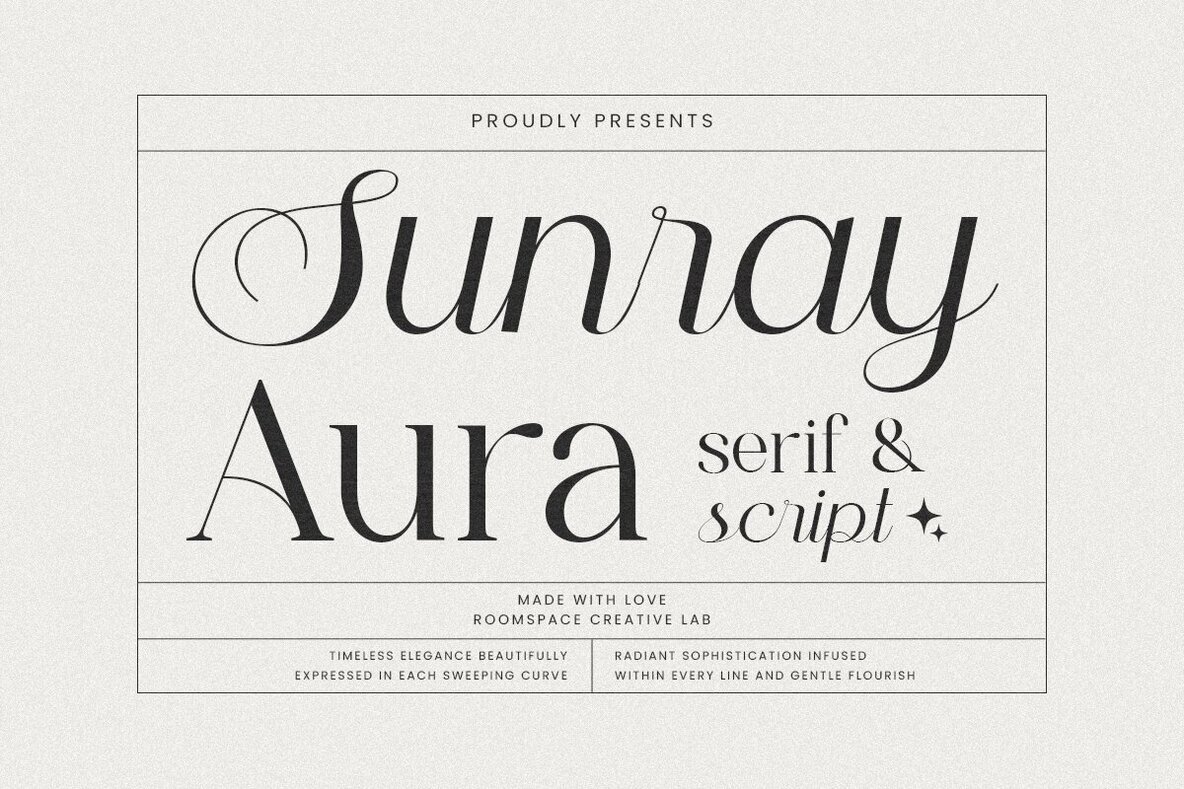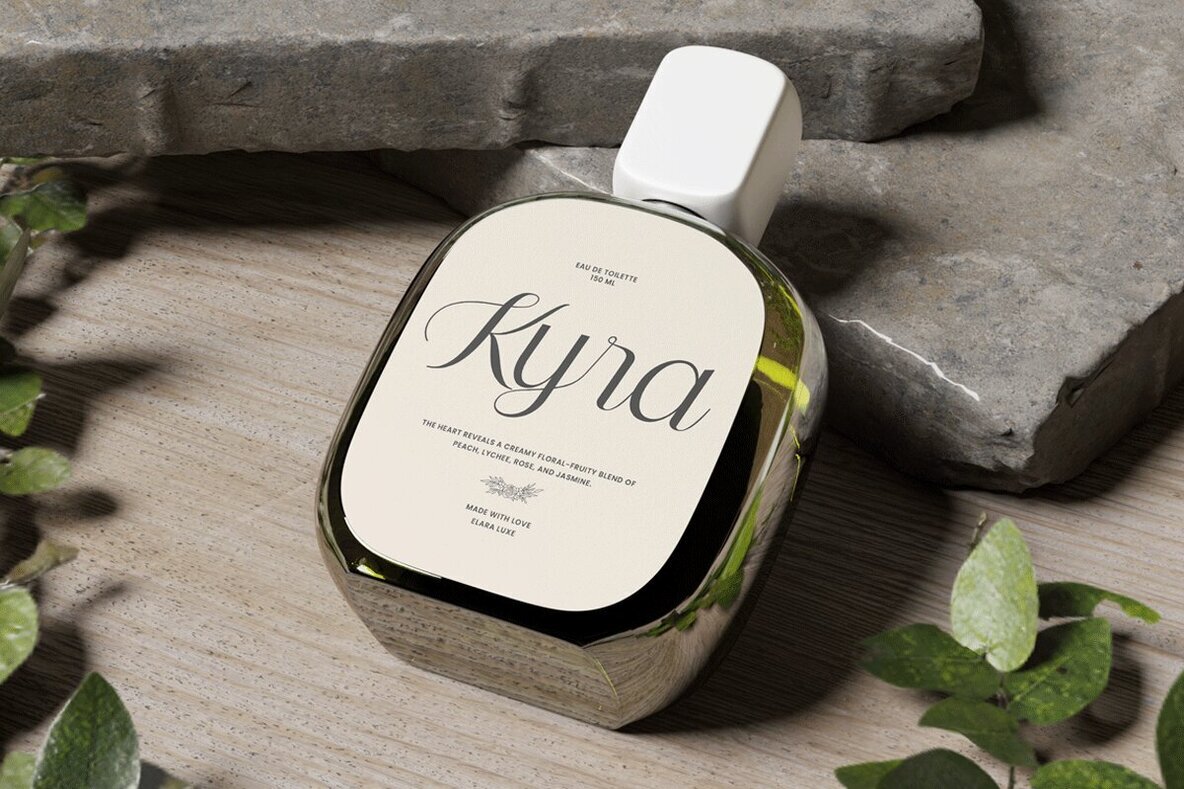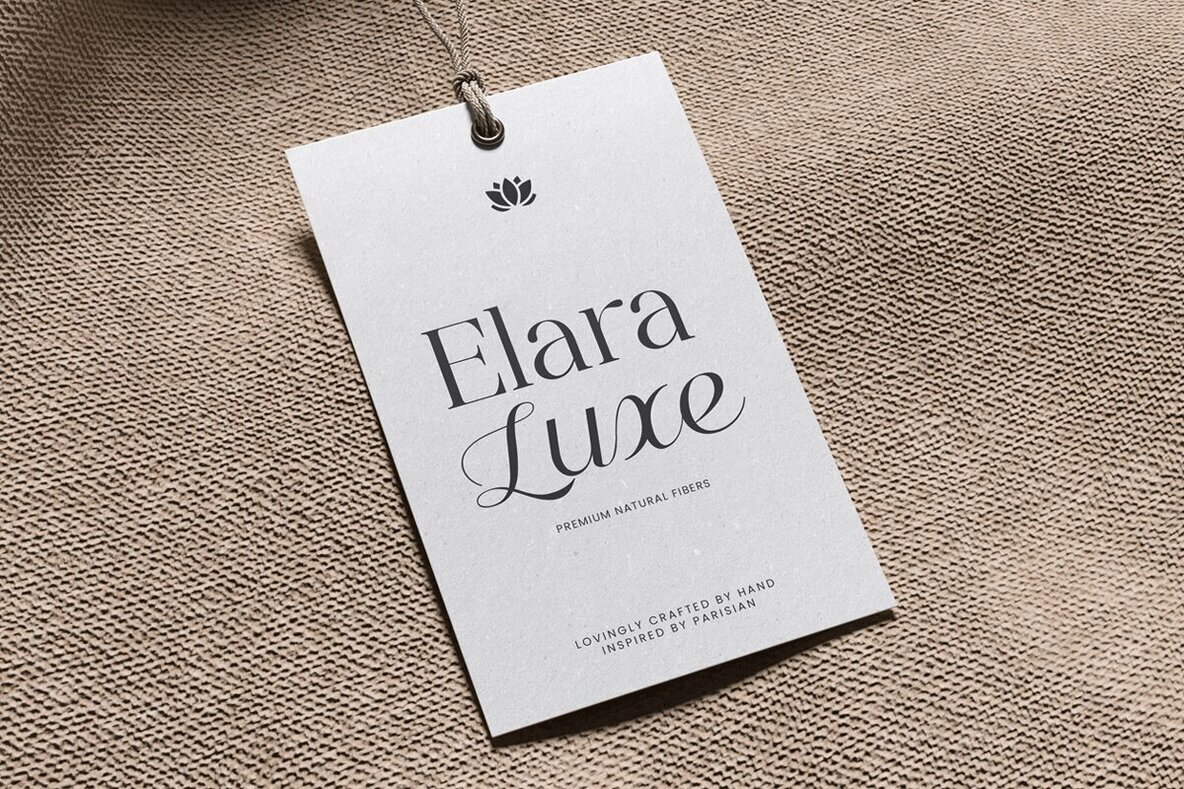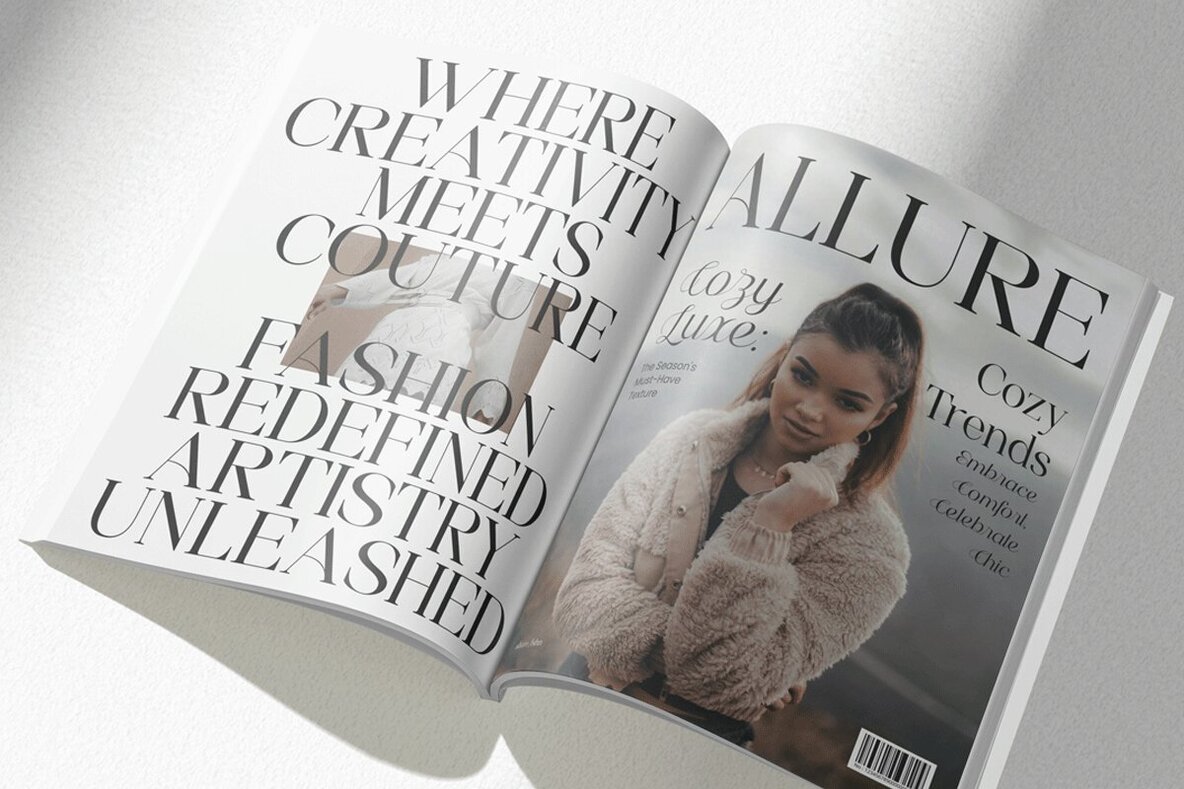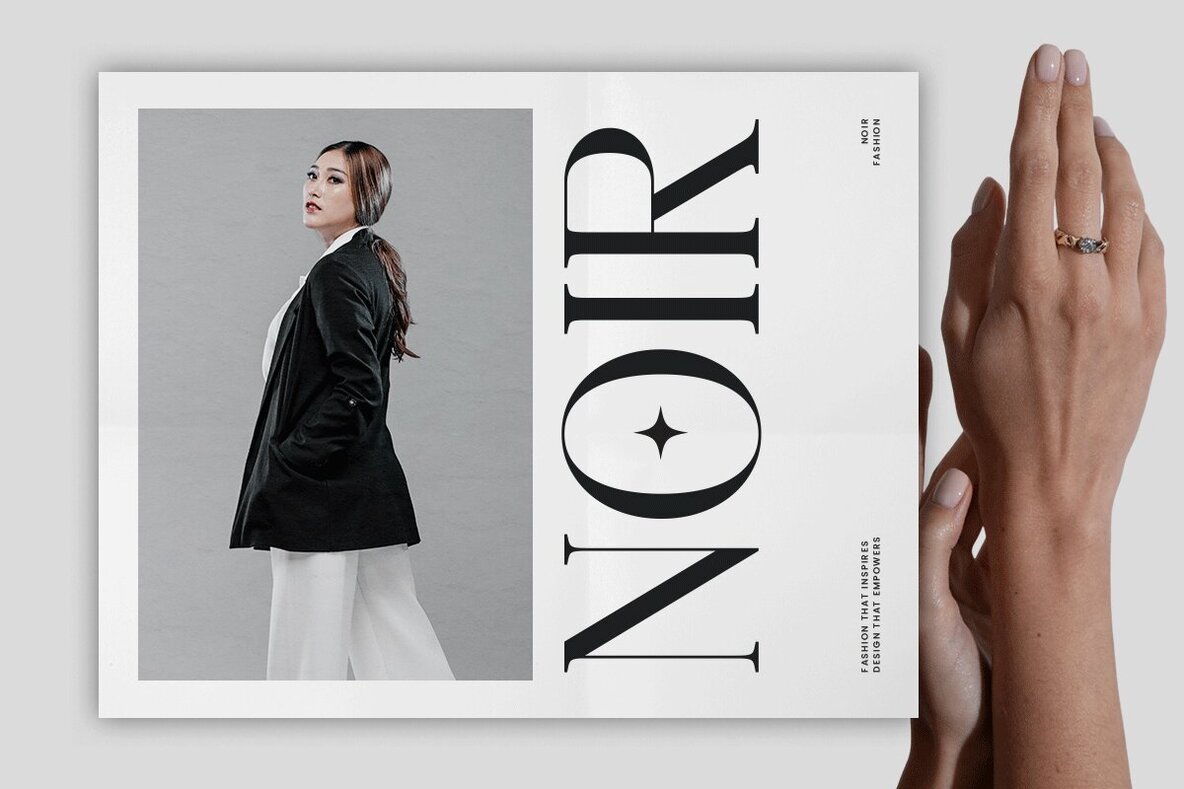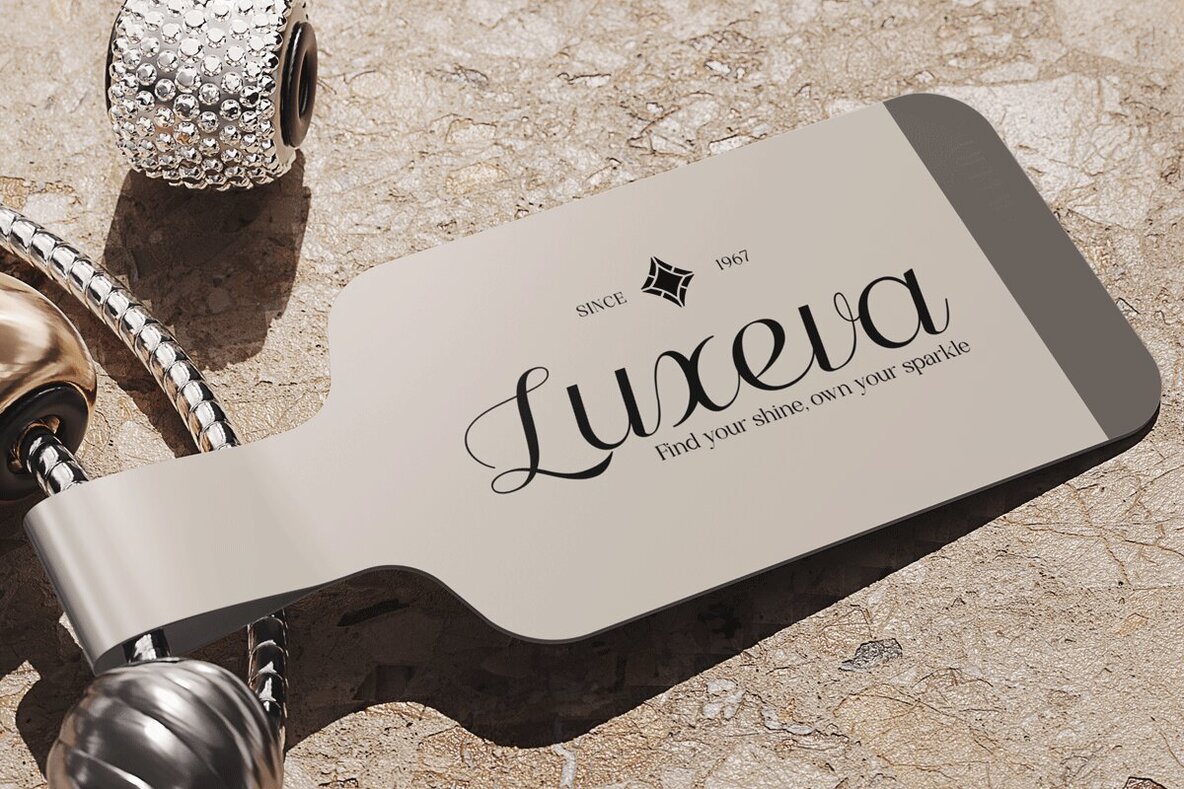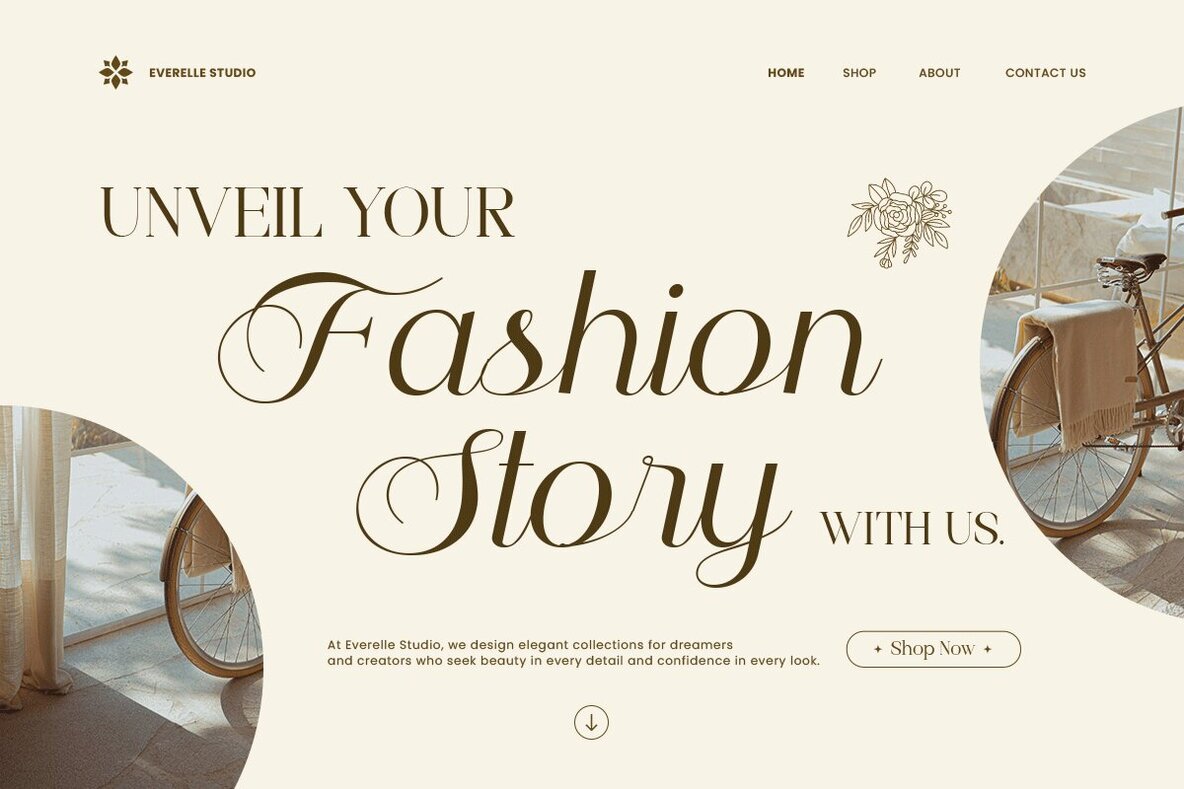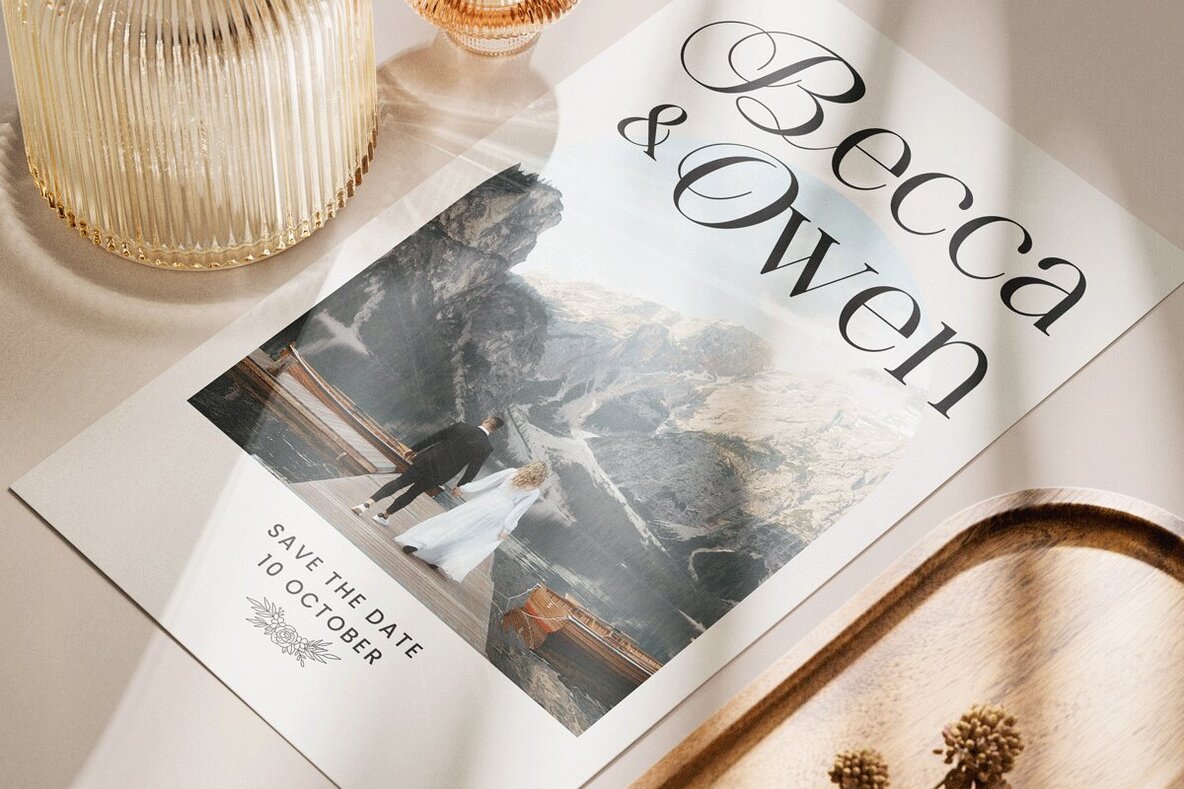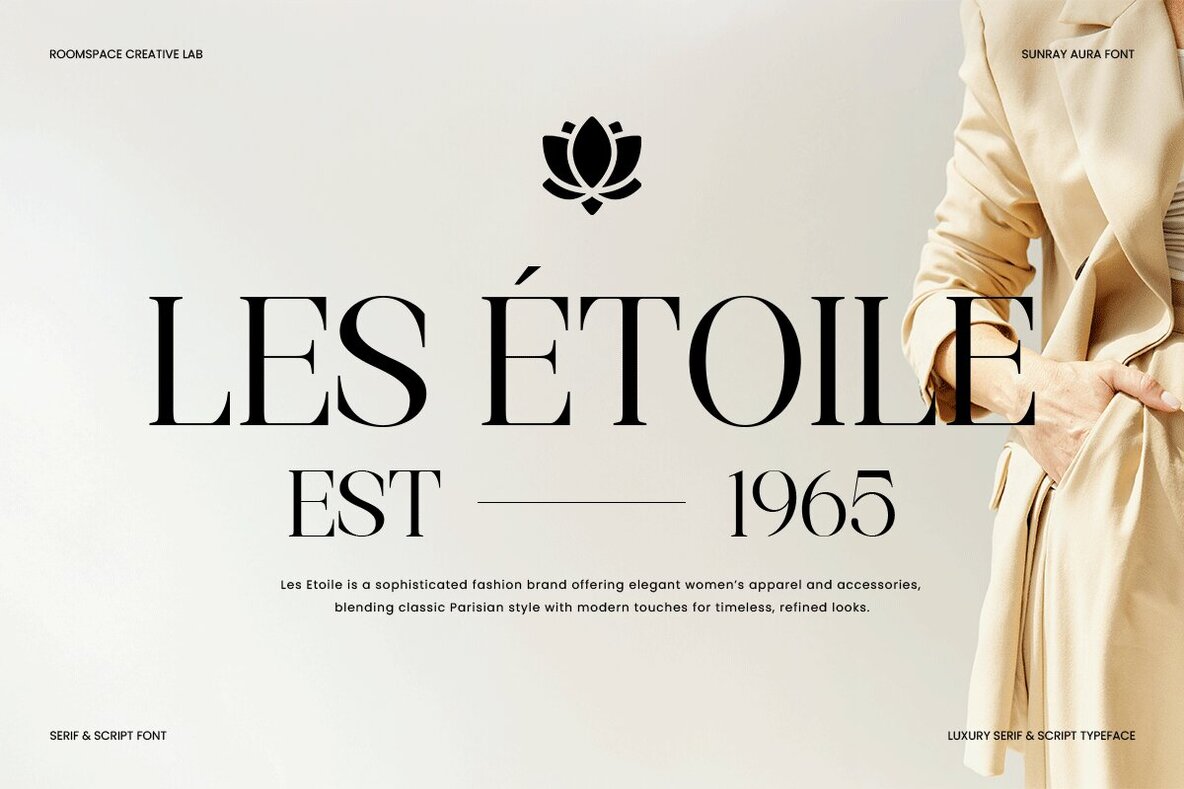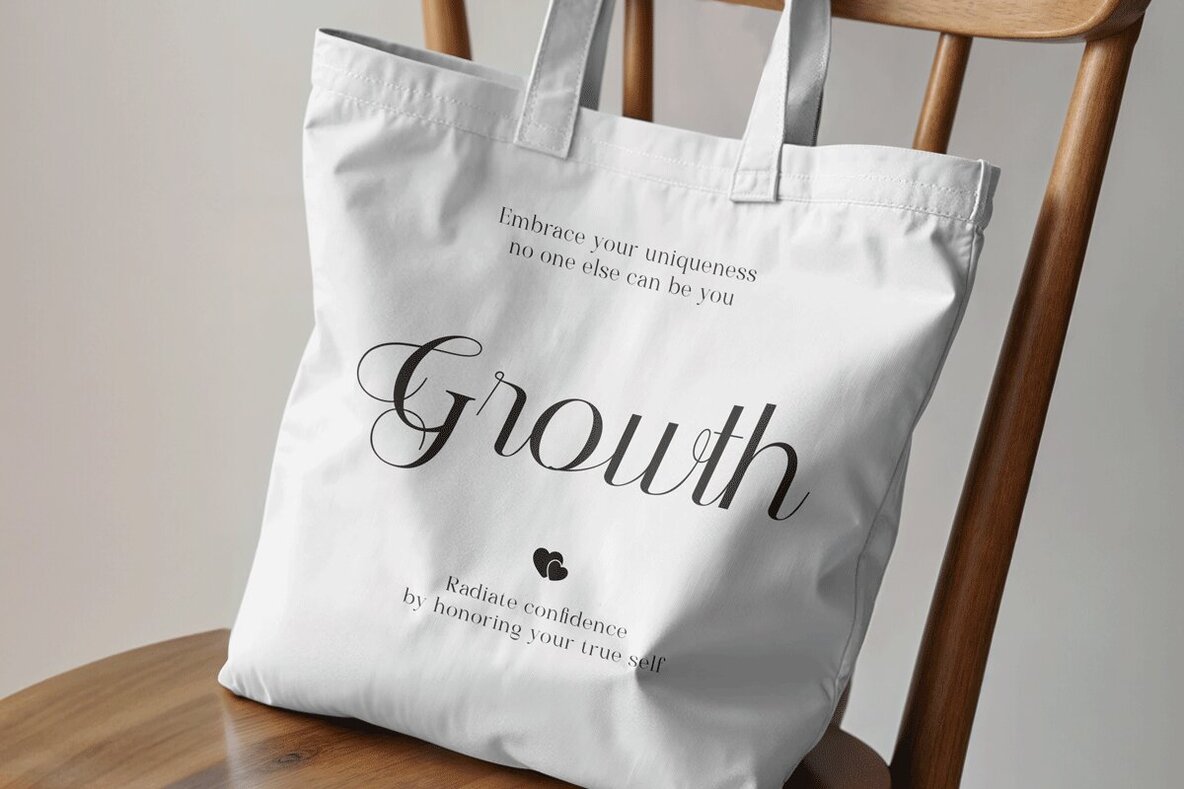
Sunray Aura Font
Sunray Aura offers a refined blend of classic serif structure and graceful script details. Its serif foundation brings subtle sophistication, while the script elements feature gentle swashes and flowing curves, adding warmth and character. This typeface is designed to evoke a sense of luxurious beauty, making it an excellent choice for projects that value both tradition and gentle, expressive flair. The thoughtful balance of kerning, contrast, and proportions allows Sunray Aura to perform beautifully in both print and digital environments. Its versatility supports a wide range of branding, editorial, or packaging applications, ensuring each composition feels polished and inviting. Perfect for those who appreciate combining the timeless appeal of serifs with the soft charm of hand-lettered script.Sunray Aura: Elegant Serif and Script Typeface